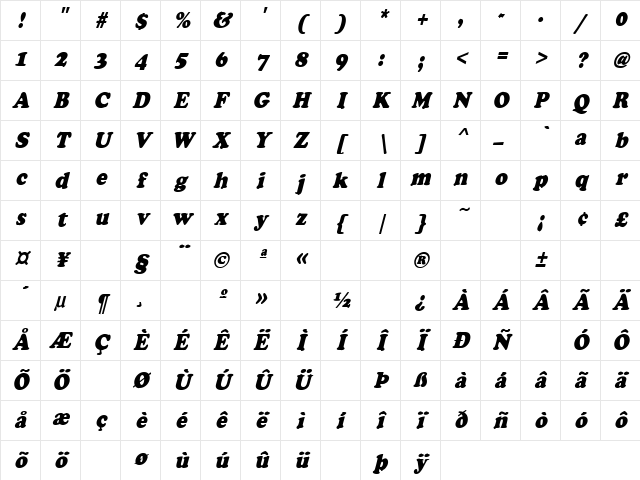
Poverty 2 Regular Free Font
Poverty 2 Regular
Design Context for Poverty 2
Poverty 2 is a composed and adaptable typeface that performs quietly and consistently across a wide range of design contexts.